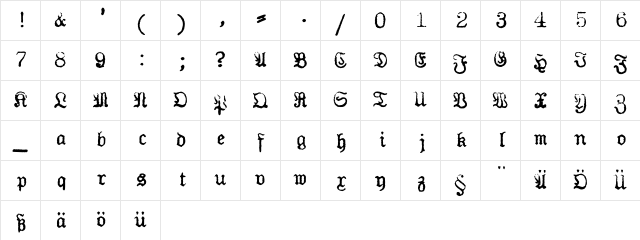
Complete Erika Mono Fraktur PE glyph index. Displaying only characters natively supported by Erika Mono Fraktur PE font.
Erika Mono Fraktur draws on the rich tradition of blackletter calligraphy, with dense, angular strokes that evoke medieval manuscripts and old-world craftsmanship.
Font Pairing: Pair with a clean neutral sans-serif for body copy to let Erika Mono Fraktur's character lead without overwhelming the composition.
Pro Tip: Reserve Erika Mono Fraktur for display and logo use - pair it with a clean sans-serif for body copy to prevent the composition from feeling oppressive.